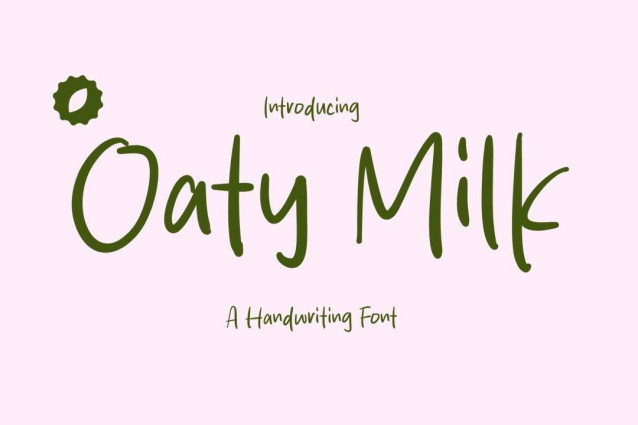
Oaty Milk Font
Oaty Milk Font is a simple and friendly handwritten font. Its natural and unique style makes it incredibly fitting to a large pool of designs. The only limit is your imagination!